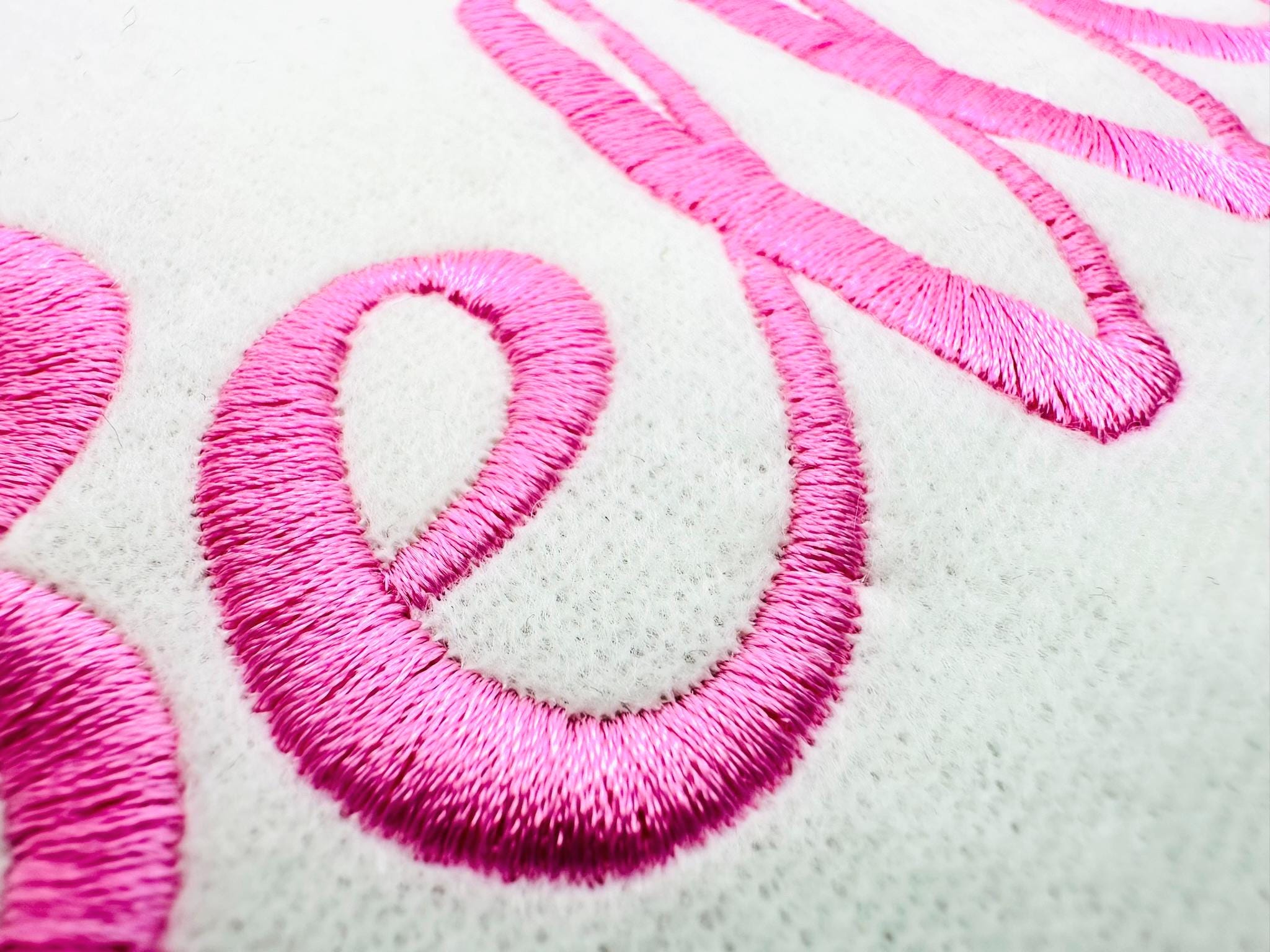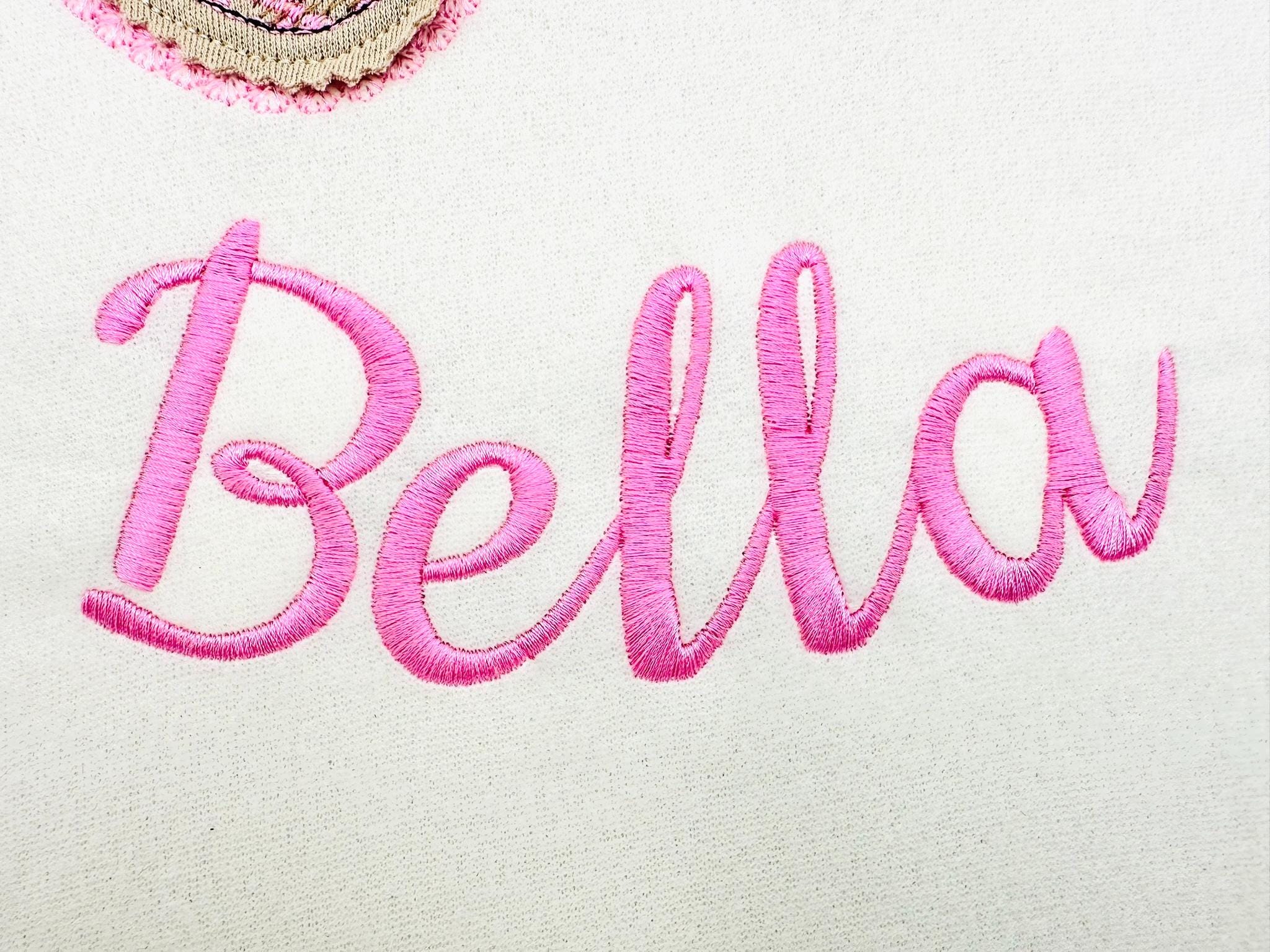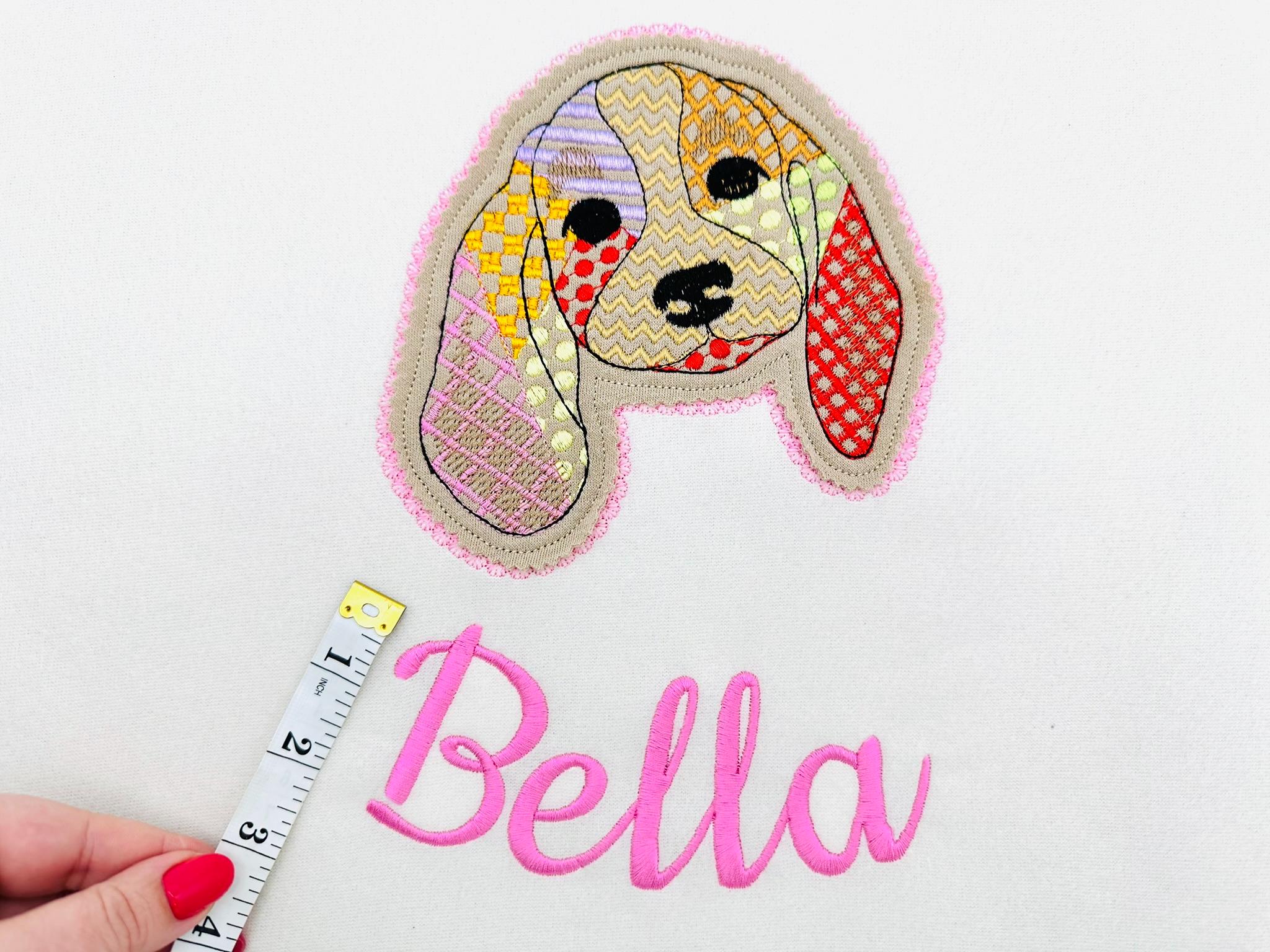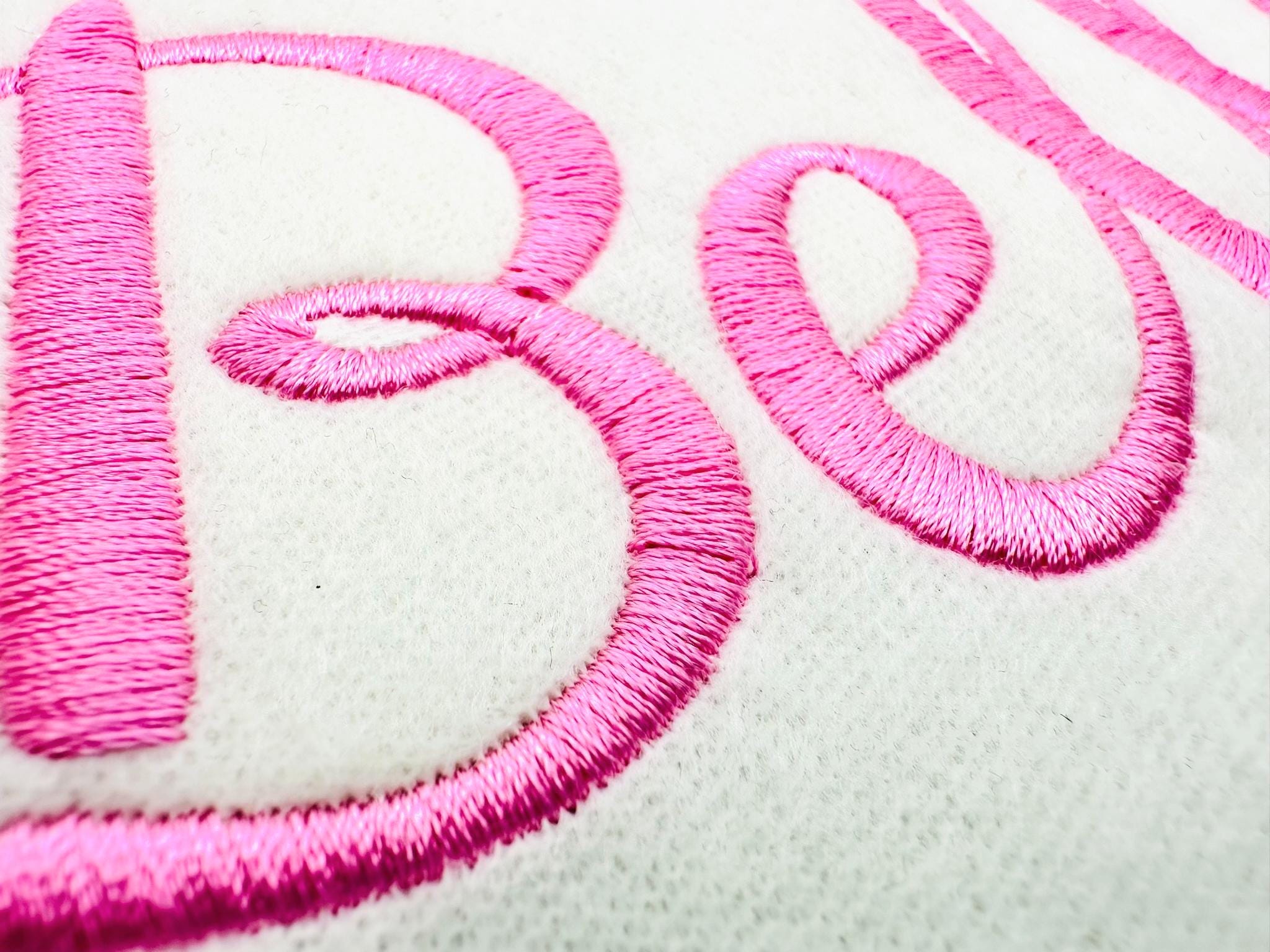
Satin stitch handwritten FONT machine embroidery designs mini wee small sizes 0.4 up to 2.8 inch kids baby monogram alphabet script font BX
0.4 inch
0.6 inch
Uppercase and lowercase letters, numbers and punctuation.